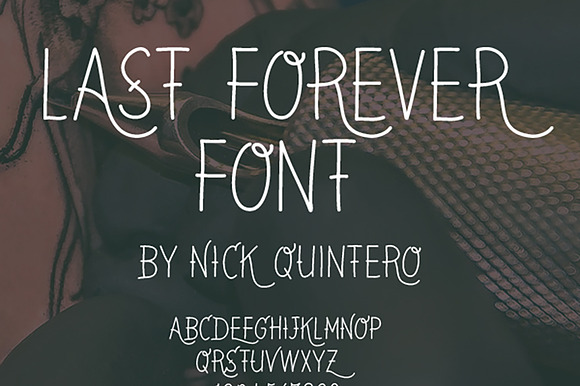
Last Forever Tattoo Font
The Last Forever font is a hand drawn digital font that is perfect for tattoo designs and other art with an old school feel. Lowercase and uppercase letters allow you to mix and match tails.
Inspired by traditional artists that works in a modern world.